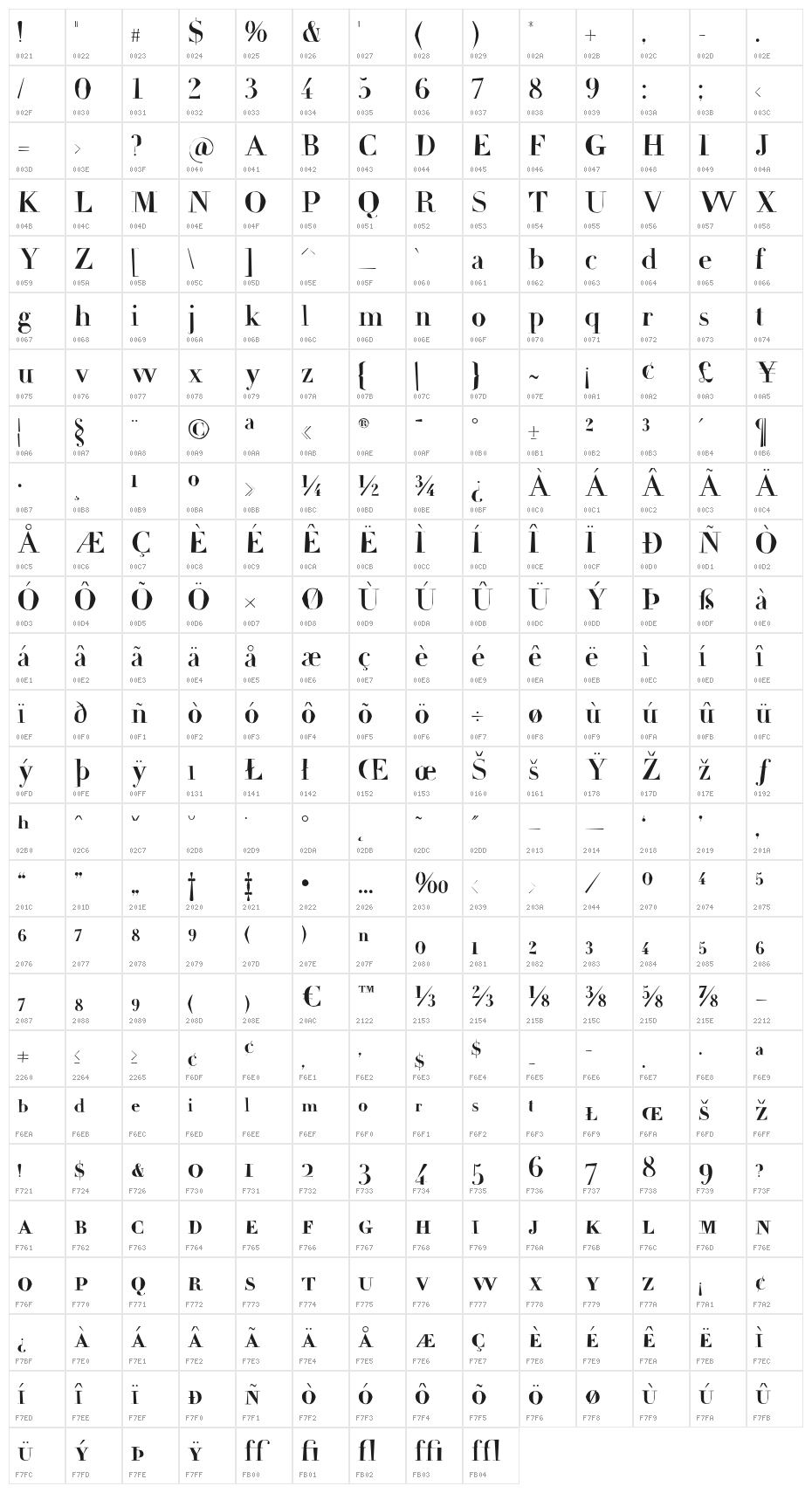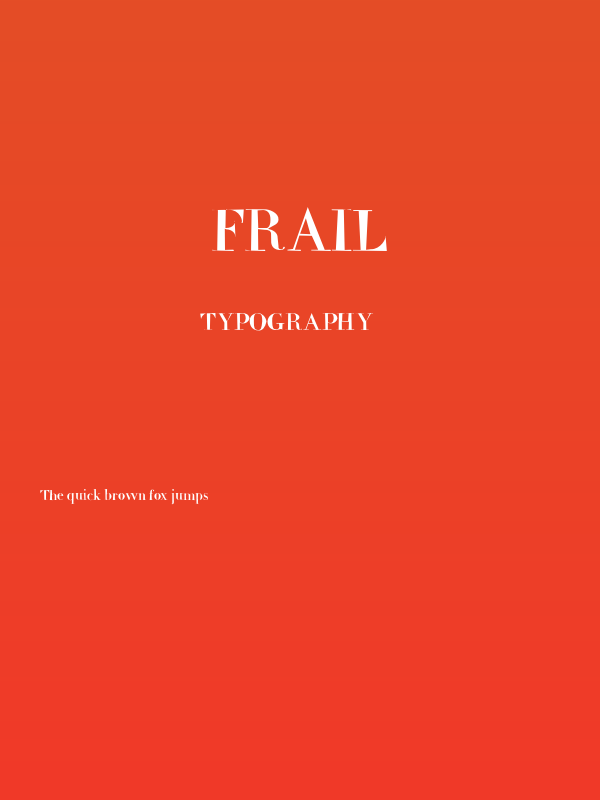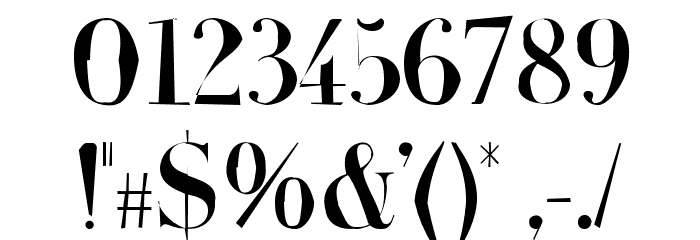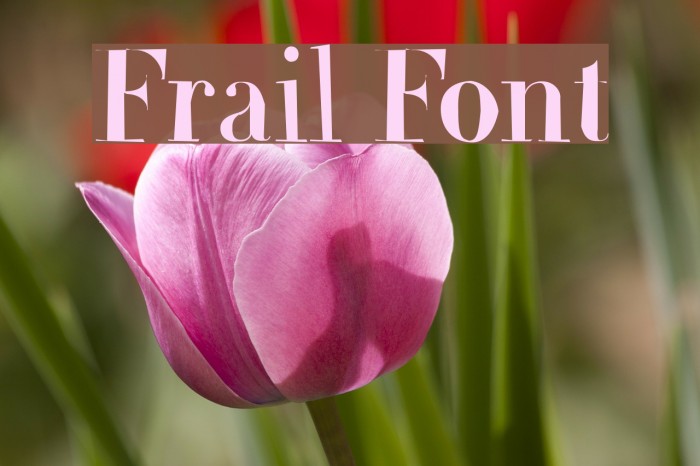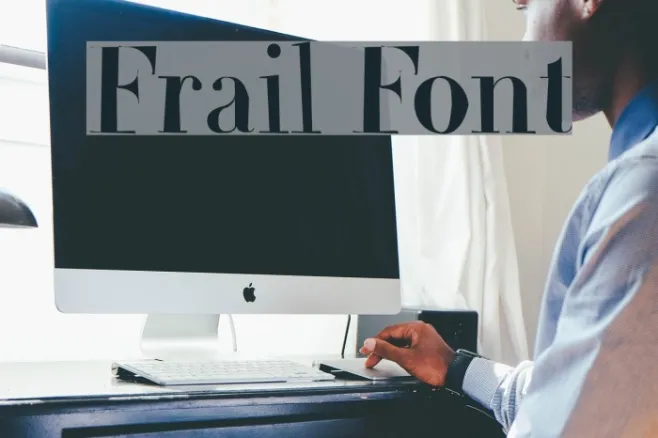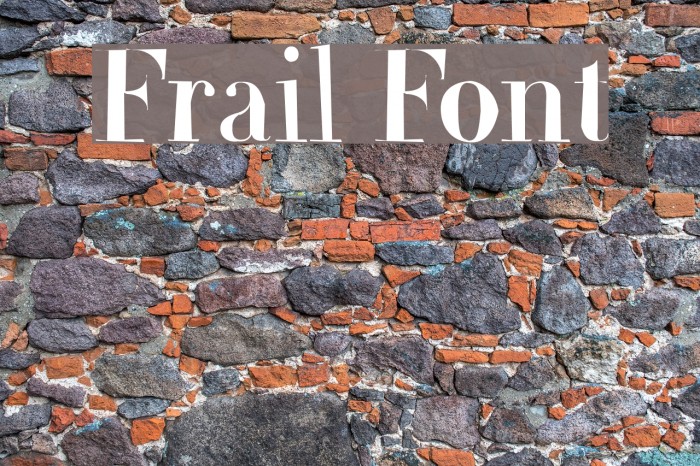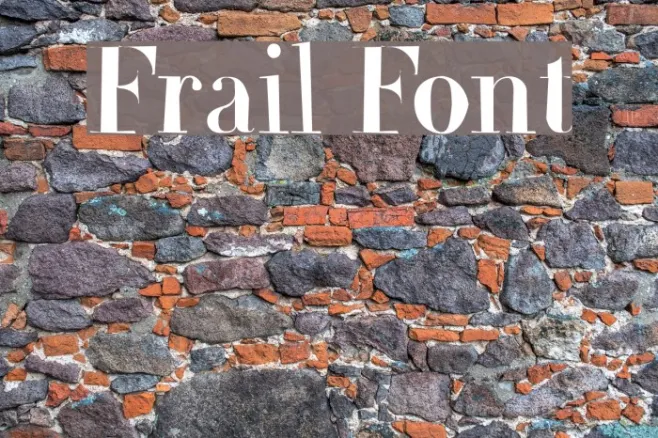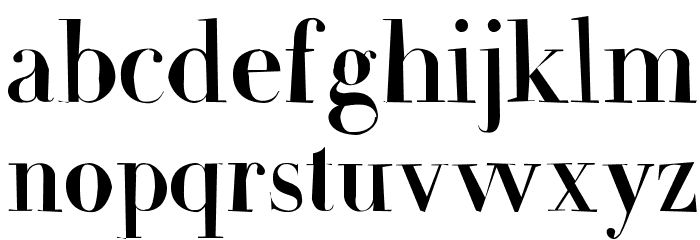
Frail Font
Frail Description
This font features a distinct serif style with a modern twist, characterized by its high contrast between thick and thin strokes. The uppercase letters exhibit a strong presence, while the lowercase letters maintain a balanced and elegant appearance. The numerals are bold and clear, ensuring readability. Special characters are designed with a unique flair, adding to the font's overall aesthetic. The combination of sharp serifs and smooth curves gives it a sophisticated yet contemporary look, making it versatile for various design applications.
| Use Case | Headlines, Logos, Editorial design |
| Proposed Projects | Ideal for editorial design, branding projects, luxury packaging, and high-end fashion magazines. |